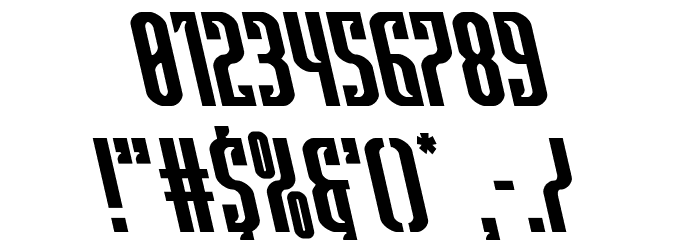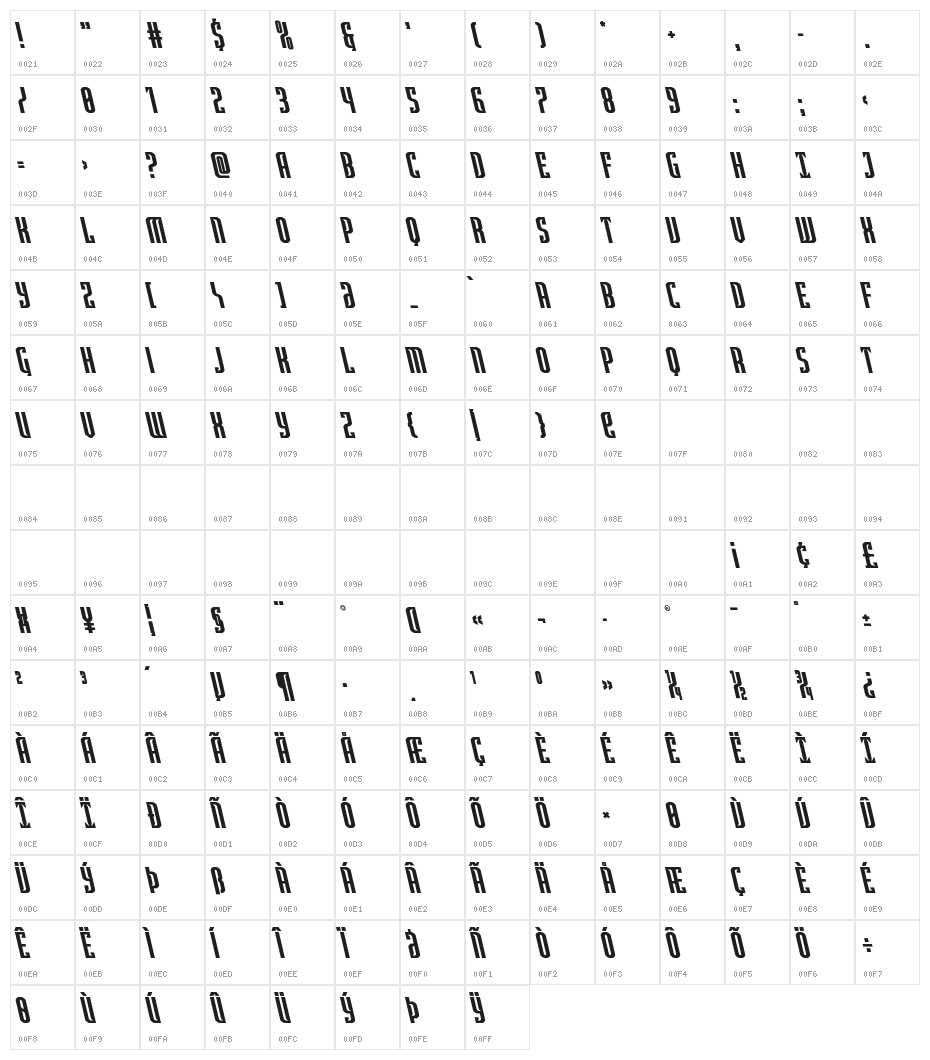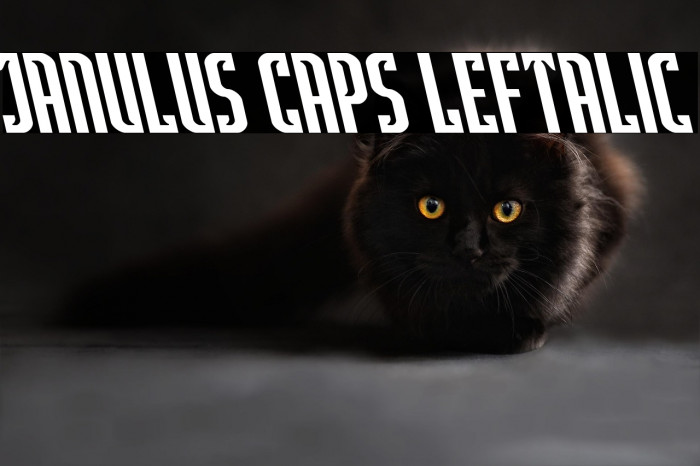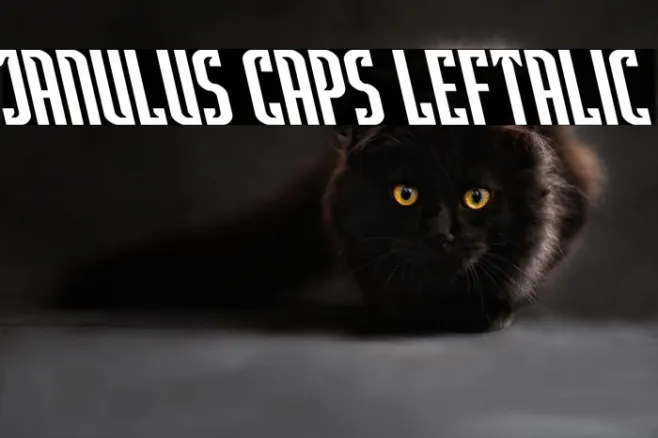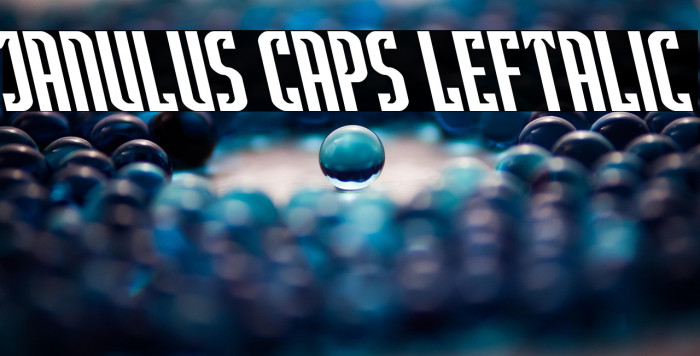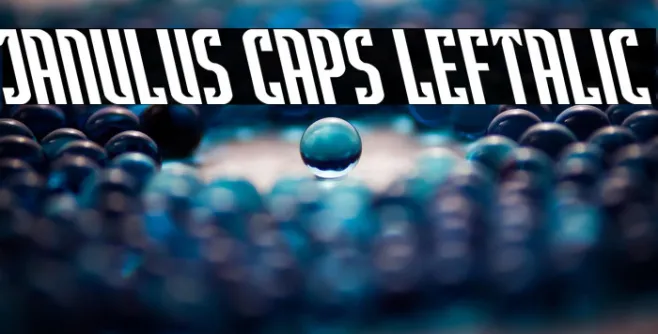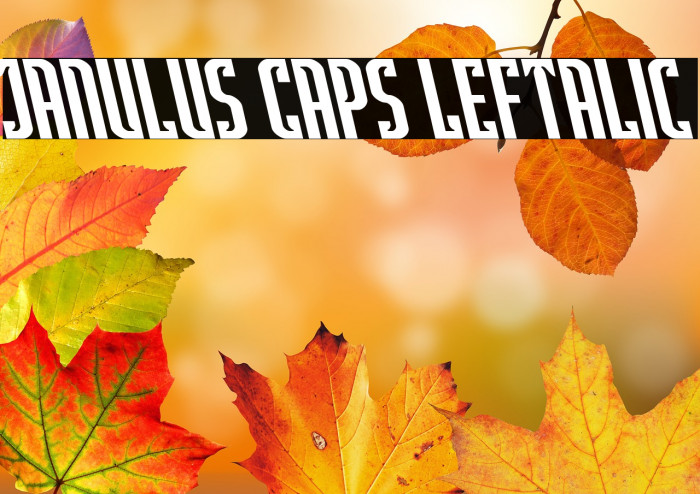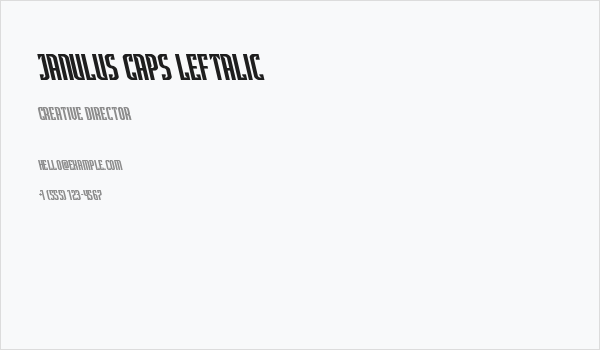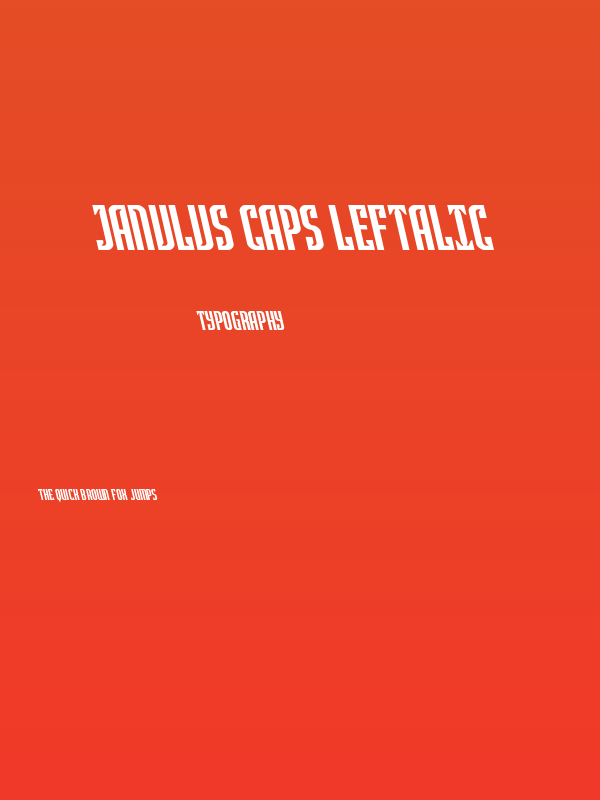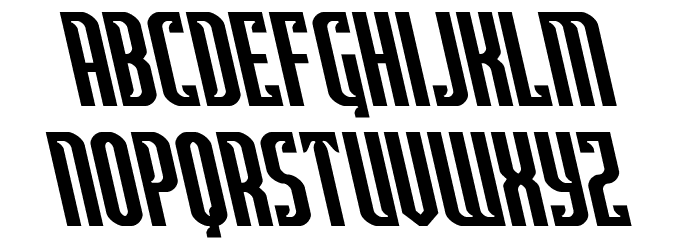
Janulus Caps Leftalic Font
Janulus Caps Leftalic Description
This font features a bold, angular design with a strong geometric influence. The characters are slanted to the left, giving a dynamic and forward-moving appearance. The uppercase letters are particularly striking, with sharp edges and a consistent stroke width that conveys strength and stability. The numbers and special characters maintain this bold style, ensuring uniformity across all glyphs. The overall aesthetic is modern and assertive, making it suitable for attention-grabbing designs.
Proposed ProjectsIdeal for posters, headlines, branding, and any design requiring a bold, modern look.